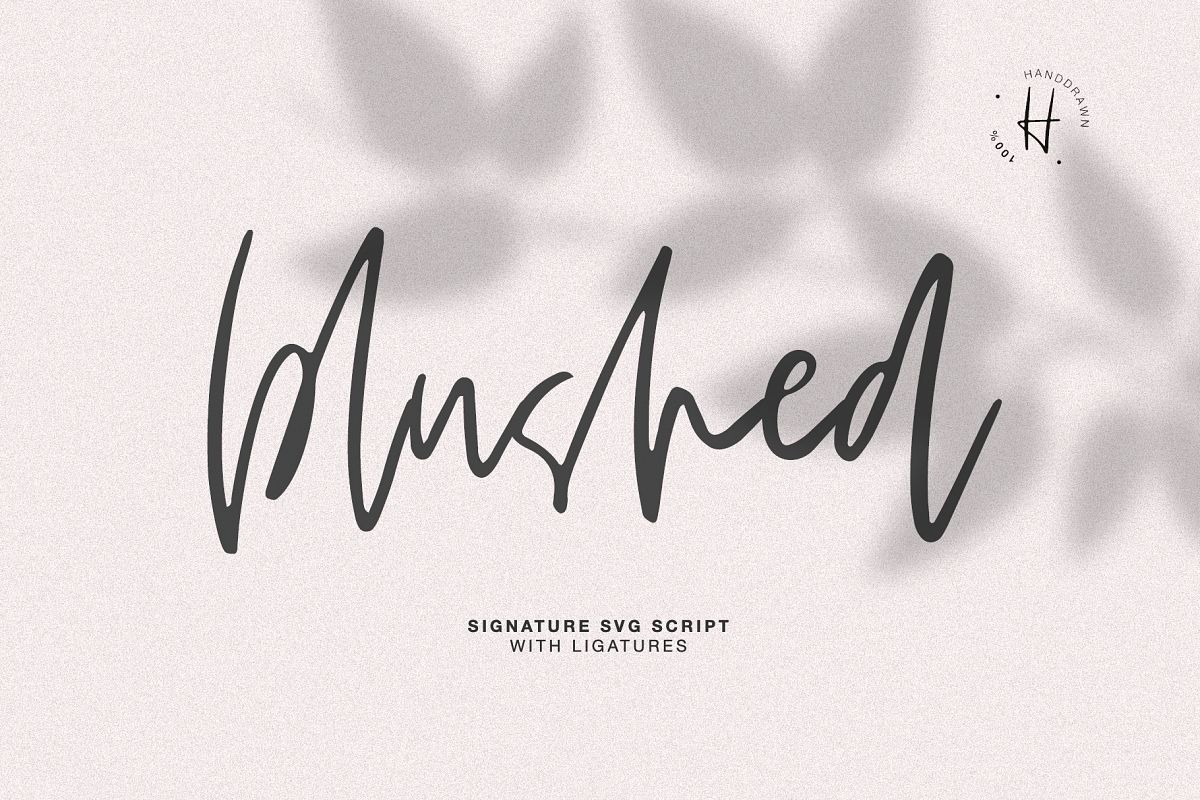
BLUSHED handwritten font
Blushed-Regular
Try my new font, I think it combines all these qualities. Simple and clear, looks at ease. It is perfect for signatures or design, where you do not need a strict style :)